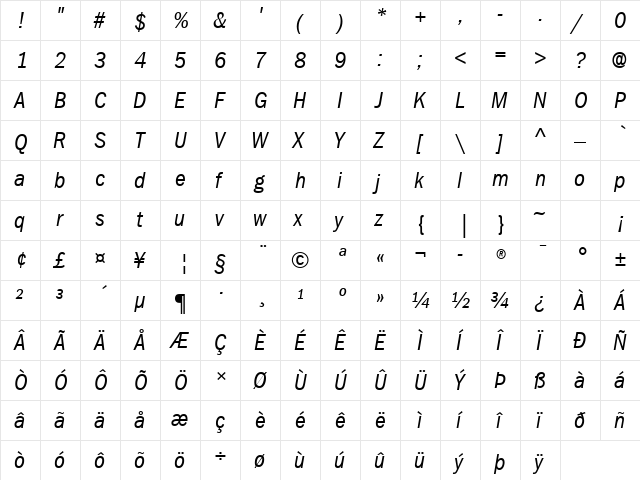
ITC Franklin Gothic LT Com Book Condensed Italic Font Preview
Design Context for ITC Franklin Gothic LT Com Typeface
ITC Franklin Gothic LT Com takes a clean, functional approach — its unadorned letterforms prioritise legibility and work reliably across screen and print environments. Its italic angle brings a sense of urgency and motion to the letterforms. The delicate stroke weight brings airiness and refinement to layouts. The condensed width makes it efficient for tight spaces without sacrificing legibility.
Ideal for fashion and beauty branding, minimal editorial layouts, and premium digital experiences.
Font Pairing: Pair ITC Franklin Gothic LT Com with a medium or bold serif for headlines — the weight contrast creates an elegant, high-end feel.
Pro Tip: Try ITC Franklin Gothic LT Com in all-caps with moderate tracking for navigation and label copy — it performs well in systematic UI contexts.